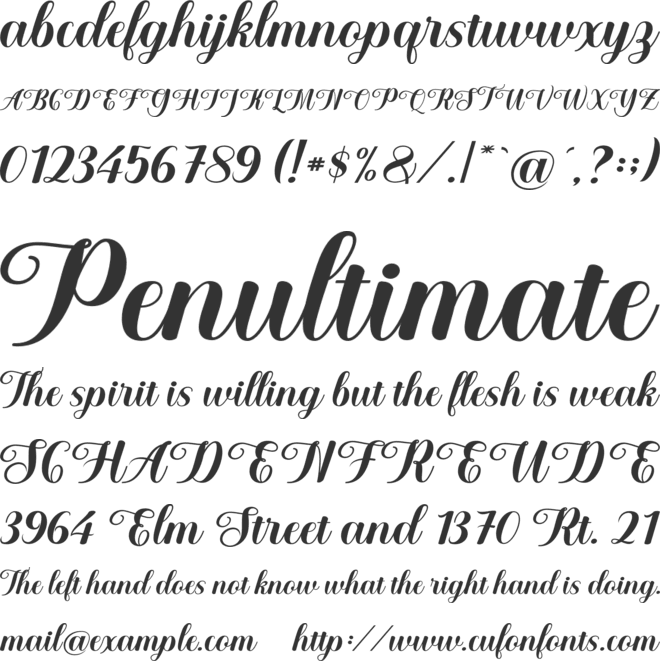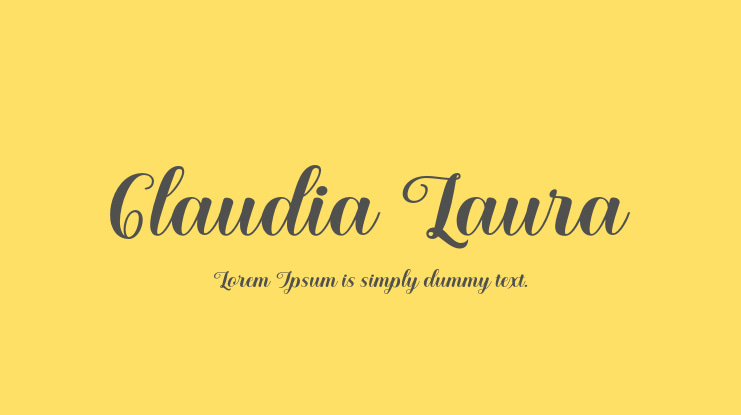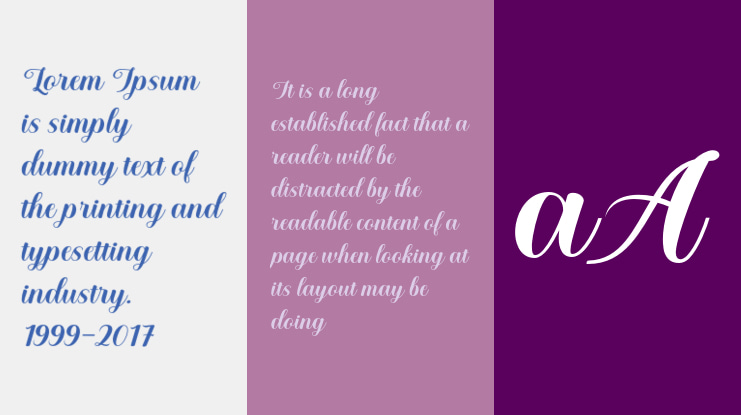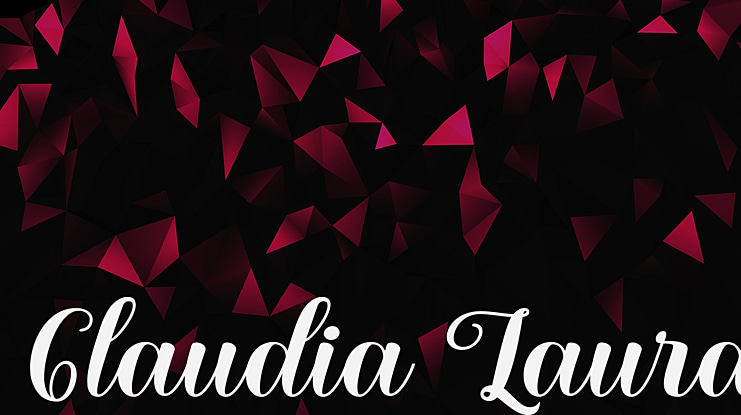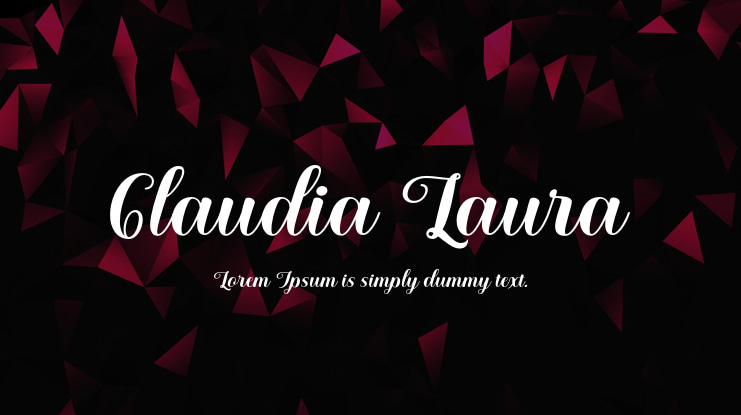
Claudia Laura Font
Claudia Laura Modern Handwritten Typeface. A collection of letters and numbers suitable your projects also great for Logotype, Branding Design, Logo Design, Digital Lettering Arts, T-Shirt/Apparel, Poster, Magazine, Signs, Advertising Design, and any design needs.Click our website :https://staircaselab.com/product/claudia-laura/